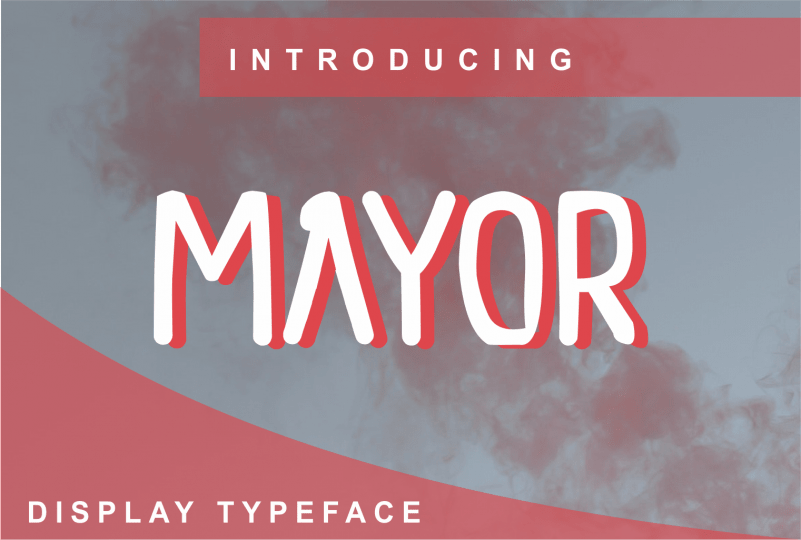
MAYOR DISPLAY FONT
Mayor is an adaptable and trendy display font. No matter the topic, this font will be an incredible asset to your fonts’ library, as it has the potential to elevate any creation.